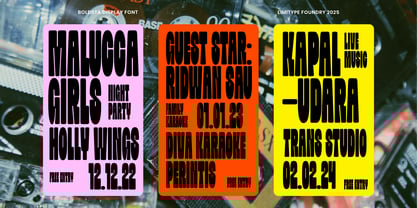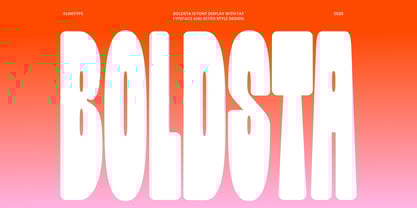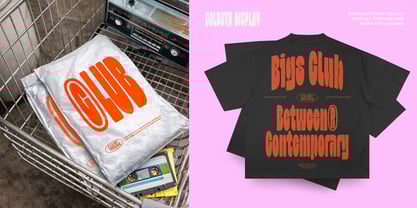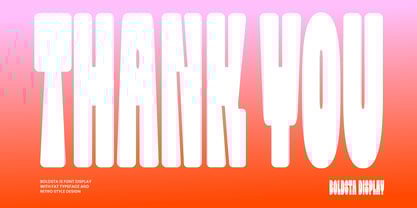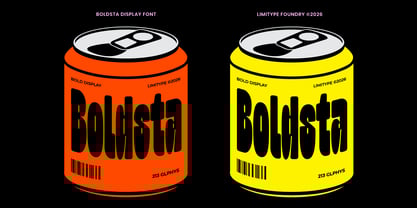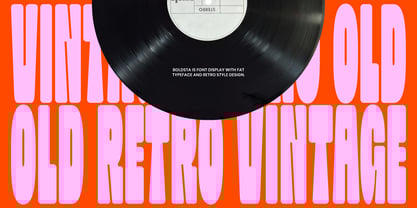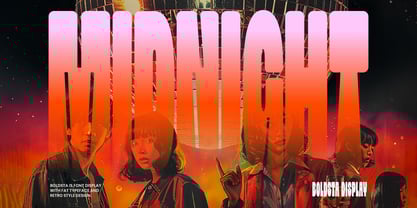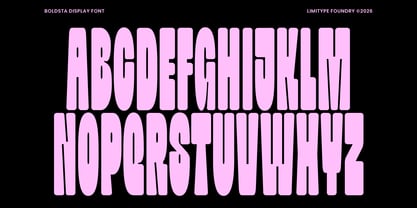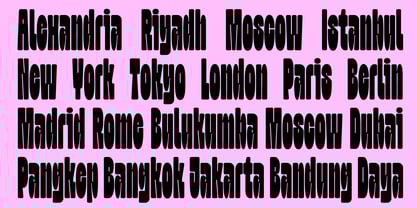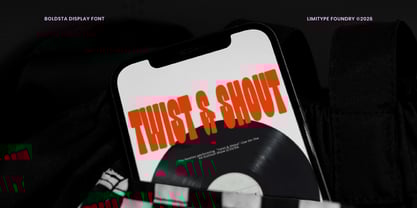
Boldsta
by limitype
The Boldsta Font Family was designed by Muhammad Muammar, Furqan Sudirman and published by limitype. Boldsta contains 1 styles.
Boldsta Condensed is a retro style display font designed with narrow proportions and a bold weight to deliver a strong, impactful display character. Inktrap details are precisely applied at stroke intersections to maintain consistent letterforms. The combination of retro with a modern structure results in visuals that are stable, clean, and high impact. This font is well suited for headlines, logotypes, posters, editorial design, packaging and a wide range of branding applications that require a bold, efficient, and professional visual identity. Boldsta available with: Uppercase Lowercas Number Symbol Multilingual
Designers: Muhammad Muammar, Furqan Sudirman
Publisher: limitype
Foundry: limitype
Design Owner: limitype